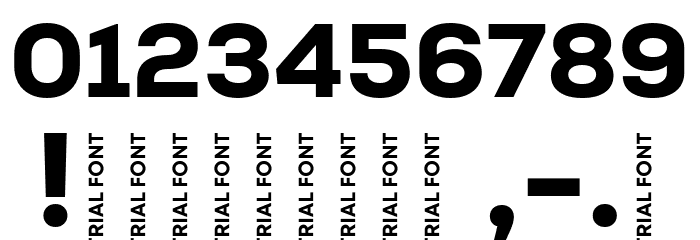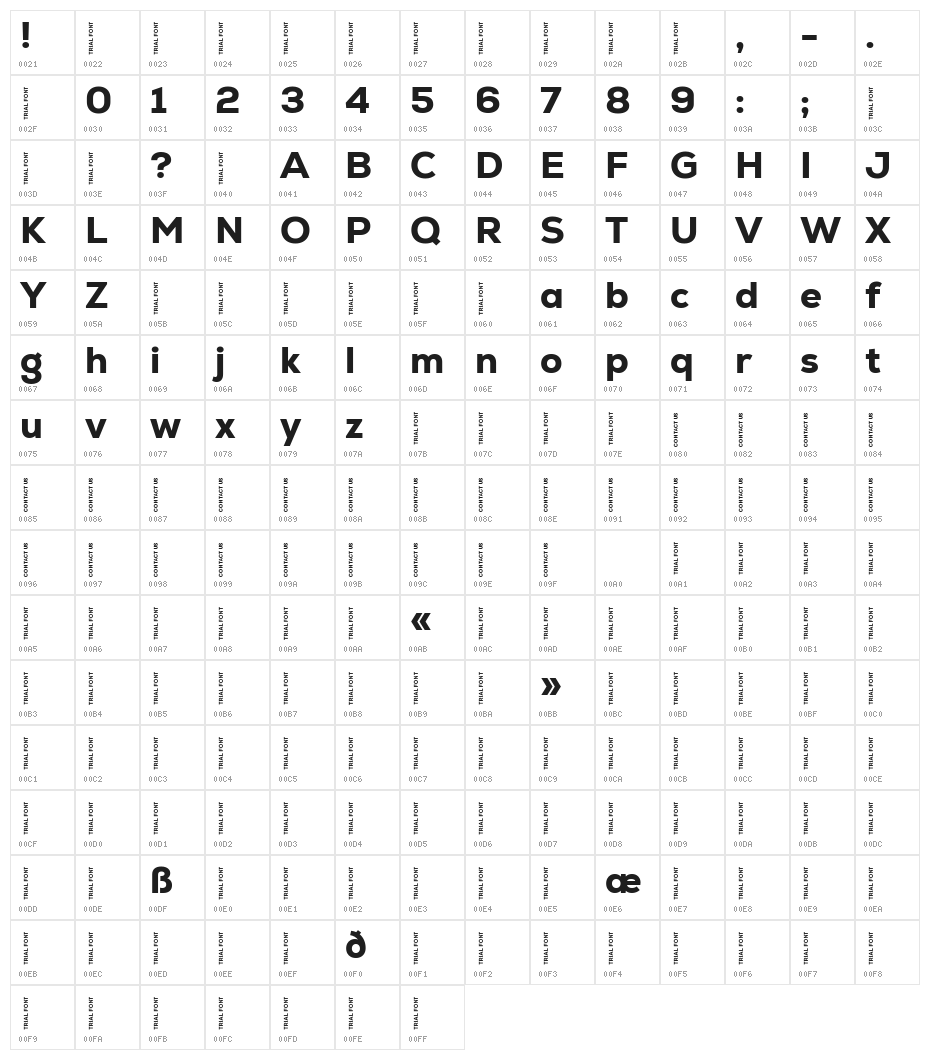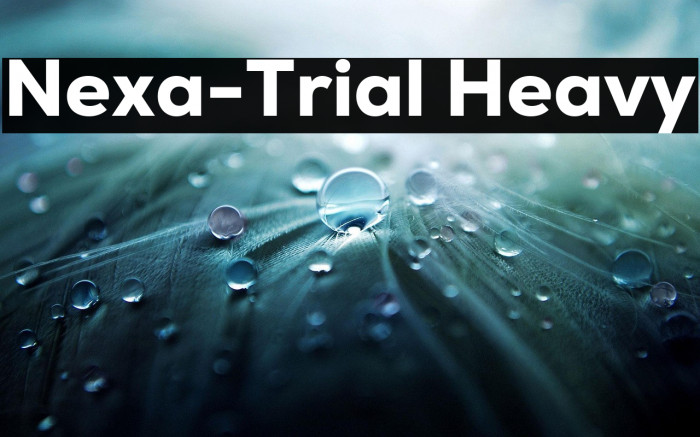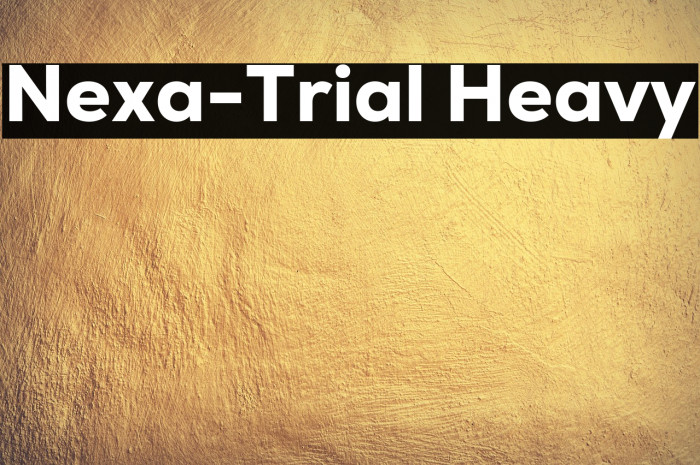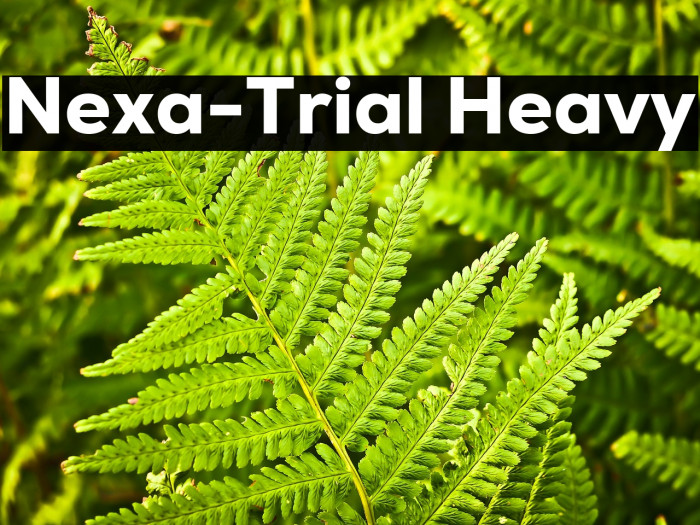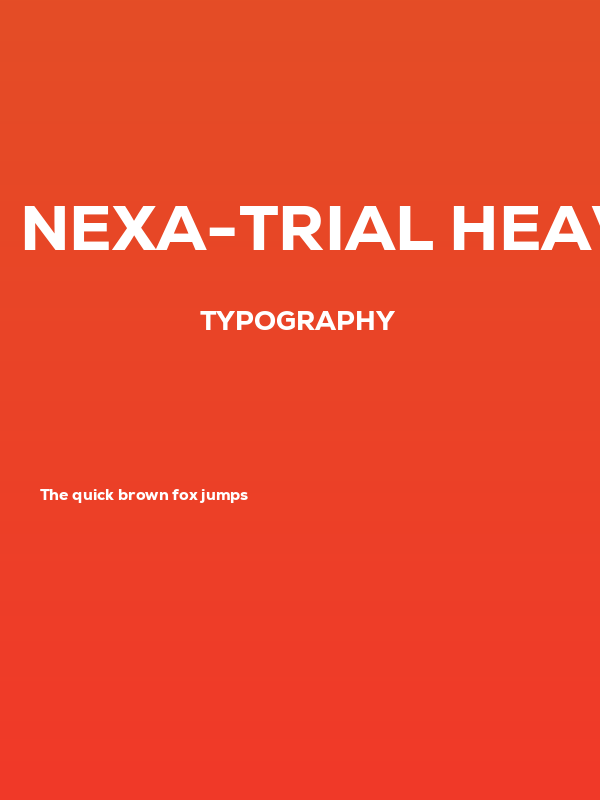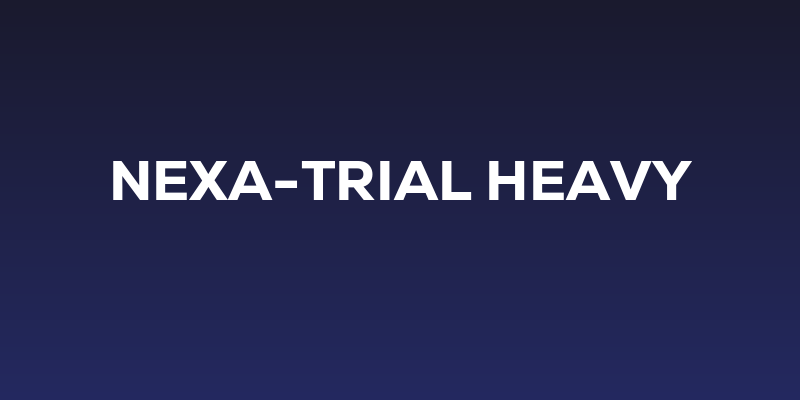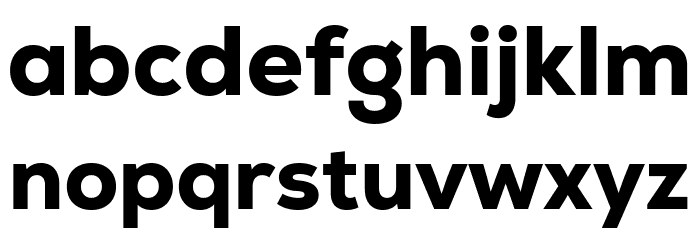
Nexa-Trial Heavy Font
Nexa-Trial Heavy Description
This font features a bold and modern sans-serif style with clean lines and a geometric structure. The uppercase and lowercase letters are well-balanced, offering a strong visual impact. The numerals are consistent with the overall design, providing clarity and readability. Special characters are included, maintaining the same boldness and style. The font's design is versatile, making it suitable for various applications where a contemporary and assertive look is desired.
| Proposed Projects | Ideal for branding, advertising, headlines, and digital media where a strong, modern presence is needed. |